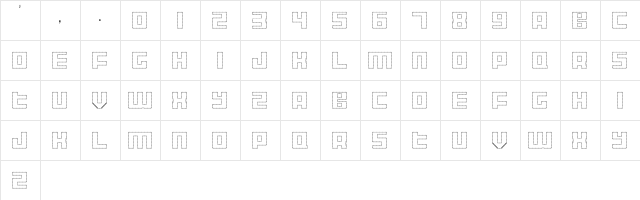
Display Gothic M Regular
| Designer | Wolf Lambert |
Design Context for Display Gothic M Typeface
Display Gothic M brings ornamental detail and strong personality to headlines and identities, where visual impact matters more than quiet functionality.
Font Pairing: Pair with a clean neutral sans-serif for body copy to let Display Gothic M's character lead without overwhelming the composition.
Pro Tip: Use Display Gothic M exclusively at display sizes — it was designed to be seen, not read at length. Let a neutral companion handle body copy.